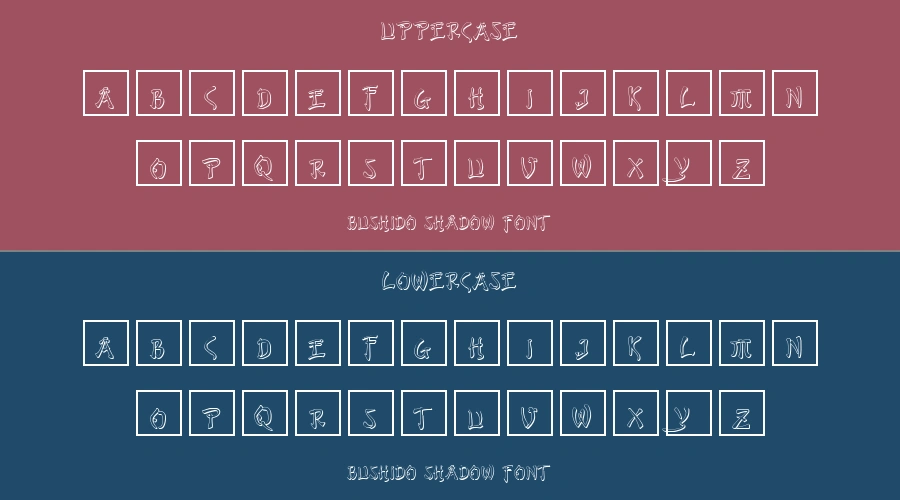
About Bushido Shadow Font
When typographic excellence matters most, Bushido Shadow Font delivers through its thoughtful blend of contextual swashes and professionalism. Specially crafted for architectural plans, it offers the adaptability and sophistication required for sophisticated design work. Every detail serves a purpose.
The character set showcases thoughtful details like rounded corners alongside functional logotype support. This proves especially valuable in reference books, where consistency directly influences results. Particular attention was paid to stroke contrast and character during development.